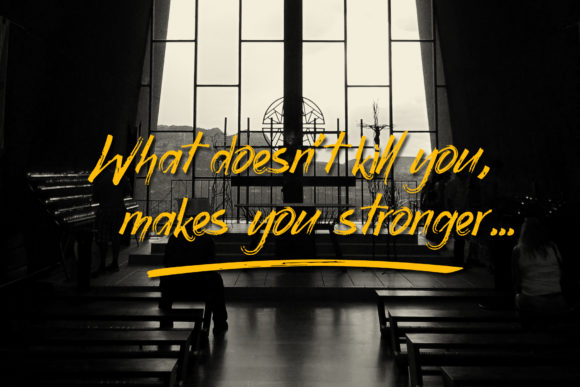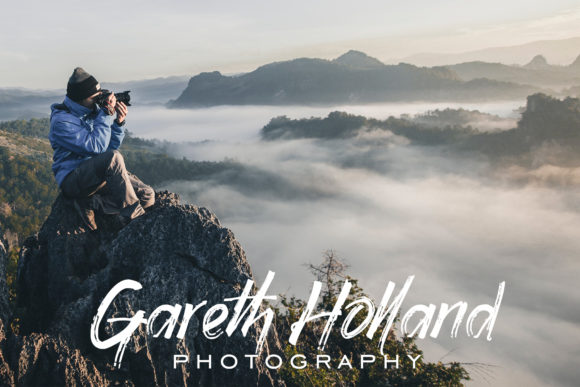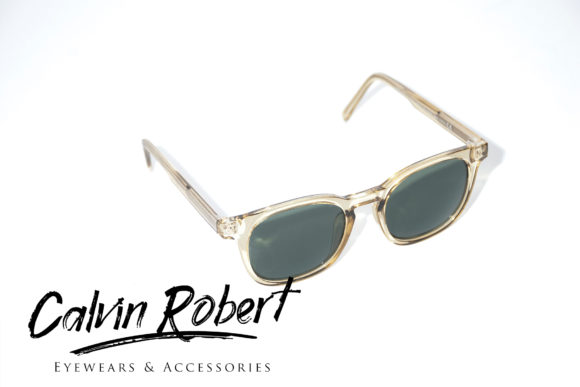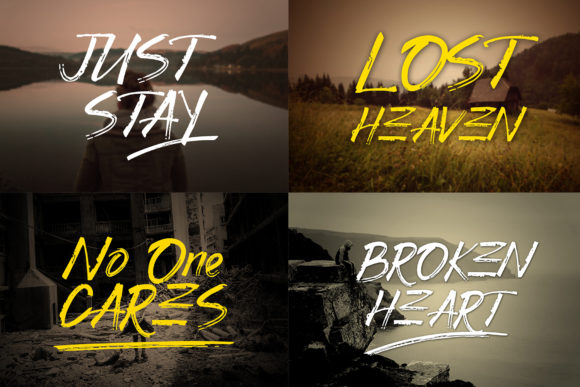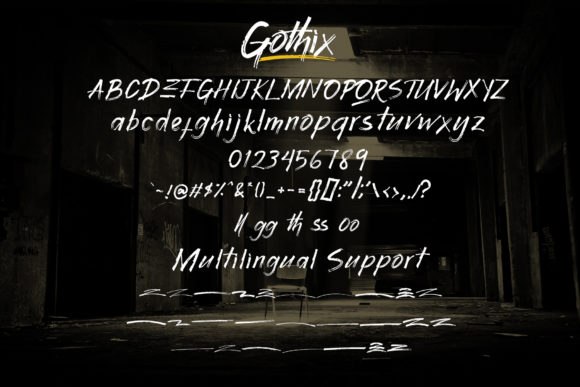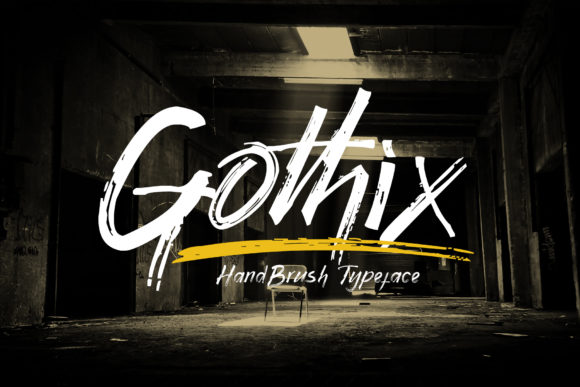
HomeScript FontsGothix Font Script Fonts Gothix Font FacebookXPinterestWhatsApp Gothix Font Poster 2 Gothix Font Poster 3 Gothix Font Poster 4 Gothix Font Poster 5 Gothix Font Poster 6 Gothix Font Poster 7 About Gothix Font Gothix is an artistic handbrush-textured typeface. It will add a natural and organic feel to any design idea! DOWNLOAD NOW People also explored Cassual Signature Font Mellow Heart Cucumber Font Australia Font Girly Style Font Wishes Stories Font White Unisex T-Shirt Mockup Photo Leonare Thin Font Burning Font 319 0 TagsGothix Font Previous articleCarletone FontNext articleMung Bean Flower Font LEAVE A REPLY Cancel reply Comment: Please enter your comment! Name:* Please enter your name here Email:* You have entered an incorrect email address! Please enter your email address here Website: Save my name, email, and website in this browser for the next time I comment. Personal Use Free Drip October Font Personal Use Free Read more about this font BD Spinner Personal Use Free Read more about this font Consequences Personal Use Free Read more about this font Simple Personal Use Free Read more about this font BLOG Top 7 Google Fonts Alternatives for Faster and Privacy-Friendly Web Design (2025) Top 7 Google Fonts Alternatives for Faster and Privacy-Friendly Web Design (2025) When it comes to web typography, Google Fonts has long been the go-to... Free Fonts Risk: Why Free Fonts Can Be Dangerous for Designers How to Cut Any Font on Cricut: Convert a Font to SVG (Free) How to Install and Use Fonts on Windows, macOS, and Web Projects